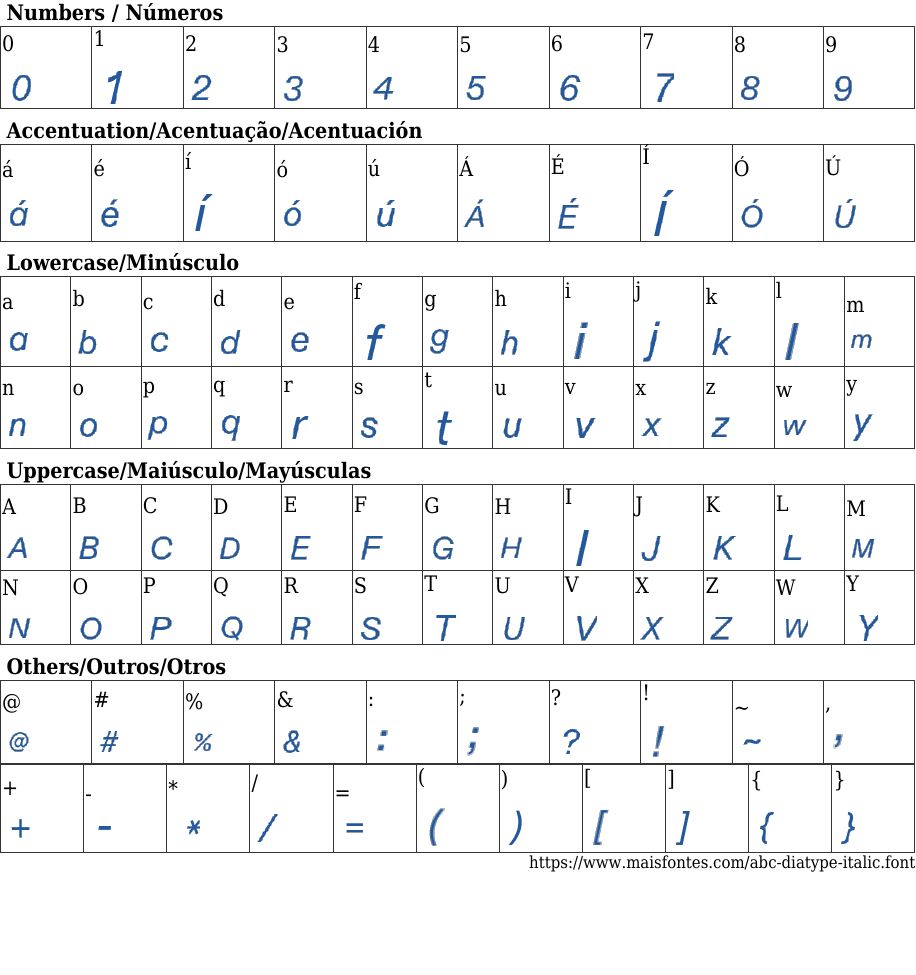
Abc Diatype Font Free Download - Abc diatype is a warm yet sharp grotesque, ideal for text and reading on screen. Discover the free abc diatype thin font at free font download ! Get to know the abc diatype font family and download it for free to use in your project. Abc diatype medium font free download. Discover the free abc diatype regular font at free font download ! We’re releasing it today to occupy an unfilled spot in our library. See how to download abc diatype medium for free!. Installable on pc, mac, linux, ios, and android platforms. A great choice for highlighting your design elements.
See how to download abc diatype medium for free!. Installable on pc, mac, linux, ios, and android platforms. Discover the free abc diatype regular font at free font download ! A great choice for highlighting your design elements. Discover the free abc diatype thin font at free font download ! Abc diatype is a warm yet sharp grotesque, ideal for text and reading on screen. Installable on pc, mac, linux, ios, and android platforms. We’re releasing it today to occupy an unfilled spot in our library. Get to know the abc diatype font family and download it for free to use in your project. Abc diatype medium font free download.
We’re releasing it today to occupy an unfilled spot in our library. Abc diatype is a warm yet sharp grotesque, ideal for text and reading on screen. Installable on pc, mac, linux, ios, and android platforms. A great choice for highlighting your design elements. Get to know the abc diatype font family and download it for free to use in.
Discover the free abc diatype regular font at free font download ! Abc diatype medium font free download. See how to download abc diatype medium for free!. Abc diatype is a warm yet sharp grotesque, ideal for text and reading on screen. We’re releasing it today to occupy an unfilled spot in our library.
Get to know the abc diatype font family and download it for free to use in your project. Abc diatype is a warm yet sharp grotesque, ideal for text and reading on screen. Installable on pc, mac, linux, ios, and android platforms. Discover the free abc diatype thin font at free font download ! Discover the free abc diatype regular.
Installable on pc, mac, linux, ios, and android platforms. Discover the free abc diatype thin font at free font download ! We’re releasing it today to occupy an unfilled spot in our library. Abc diatype medium font free download. Abc diatype is a warm yet sharp grotesque, ideal for text and reading on screen.
Abc diatype is a warm yet sharp grotesque, ideal for text and reading on screen. Discover the free abc diatype regular font at free font download ! Installable on pc, mac, linux, ios, and android platforms. Discover the free abc diatype thin font at free font download !
Abc diatype is a warm yet sharp grotesque, ideal for text and reading on screen. A great choice for highlighting your design elements. Discover the free abc diatype regular font at free font download ! Installable on pc, mac, linux, ios, and android platforms. Get to know the abc diatype font family and download it for free to use in.
Get to know the abc diatype font family and download it for free to use in your project. A great choice for highlighting your design elements. Discover the free abc diatype thin font at free font download ! See how to download abc diatype medium for free!. Discover the free abc diatype regular font at free font download !
A great choice for highlighting your design elements. Get to know the abc diatype font family and download it for free to use in your project. Discover the free abc diatype regular font at free font download ! Installable on pc, mac, linux, ios, and android platforms. Abc diatype medium font free download.
See how to download abc diatype medium for free!. Discover the free abc diatype regular font at free font download ! Installable on pc, mac, linux, ios, and android platforms. Abc diatype is a warm yet sharp grotesque, ideal for text and reading on screen.